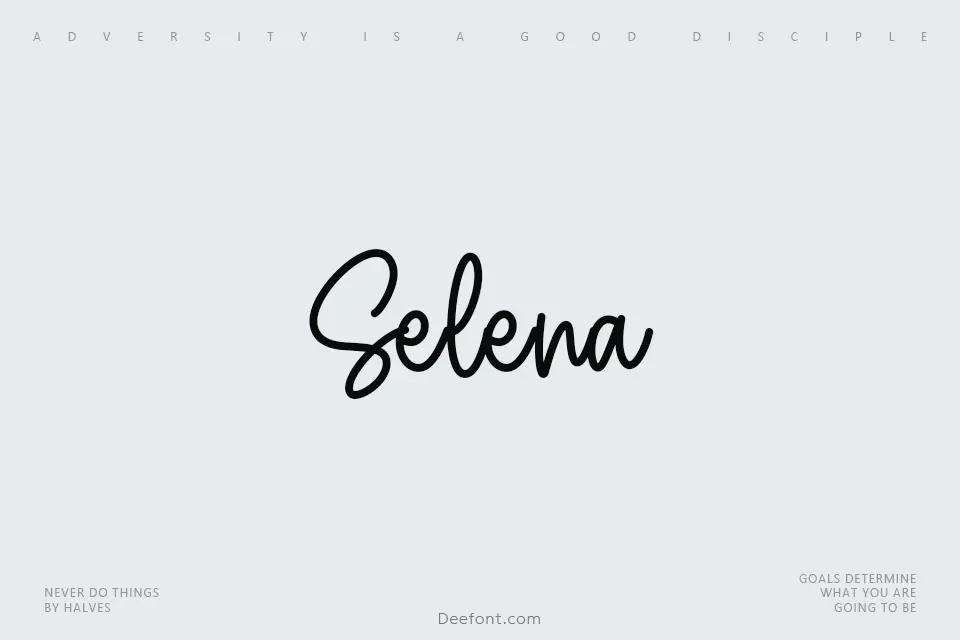
Selena Font
Selena is a beautiful, well-balanced, and new-style script font. It is defined by smooth curves and is perfect for fashion branding or editorial designs. This font is PUA encoded, which means you can access all glyphs and swashes with ease!